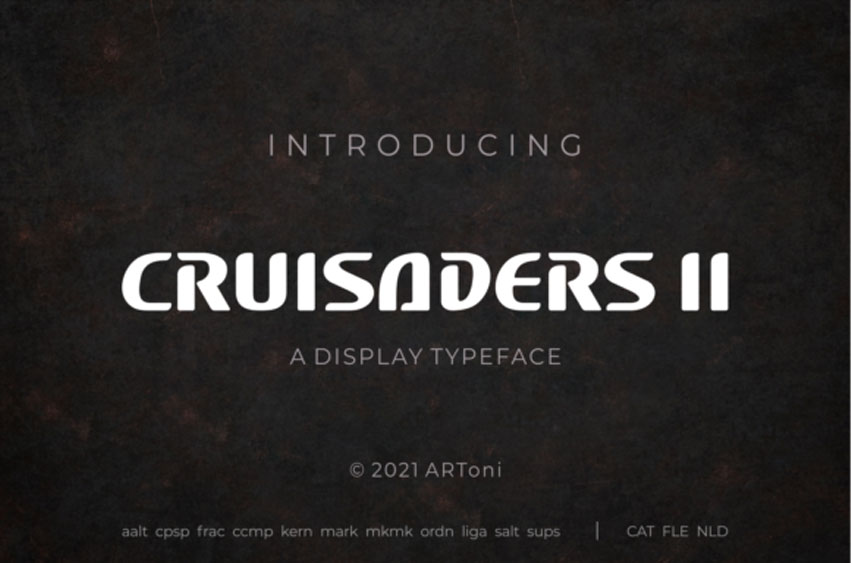
Cruisader II Font
Cruisader II Font is a cool, fresh and bold display font.
This font reads as strong, confident, and dynamic and can add tons of nostalgic character to your designs.